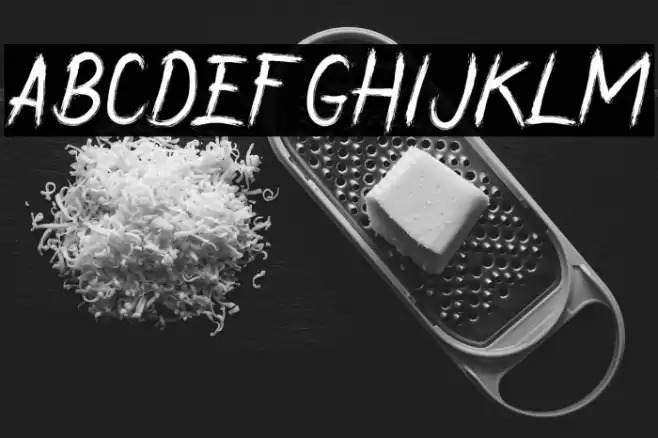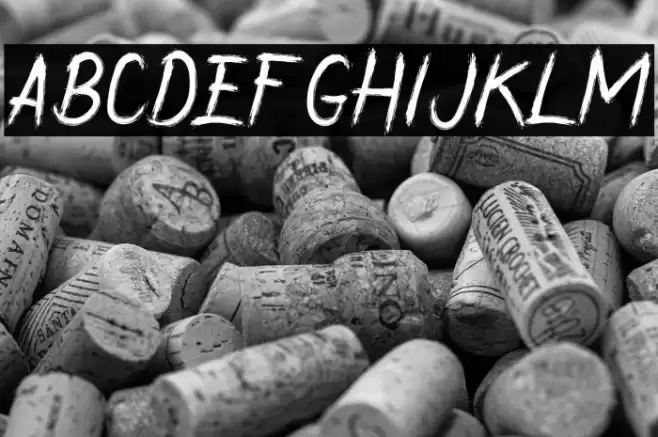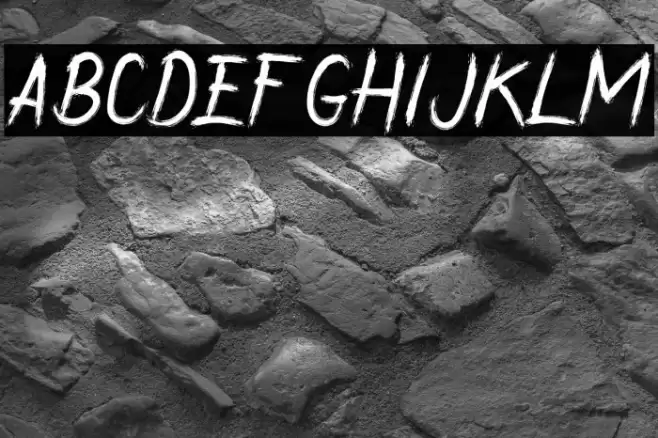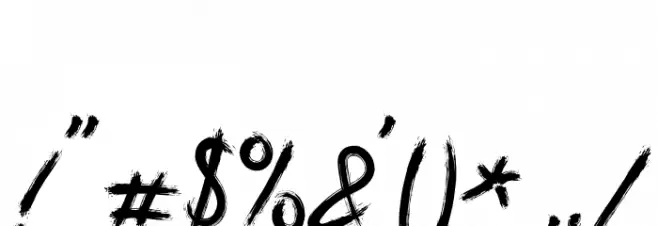
Grusel Font
Grusel Description
This font features a dynamic and energetic brush script style, characterized by its bold and expressive strokes. The letters have a hand-drawn appearance, with varying thickness that adds a sense of movement and spontaneity. The uppercase and lowercase letters are designed with a consistent slant, enhancing the fluidity and casual feel. The characters are slightly condensed, which contributes to a compact and impactful look. The font includes a full set of uppercase and lowercase letters, numerals, and a selection of special characters, making it versatile for various design needs. The rough edges and irregularities in the strokes give it a raw and artistic quality, suitable for creative and informal projects.
A bold and expressive brush script font with dynamic strokes and a hand-drawn feel from Uncategorized fonts.
- Font: Grusel
- Proposed Projects: Ideal for branding, posters, invitations, and any project that requires a lively and artistic touch.
- Character Spacing: Tight